crit session
It was a full schedule but the students displayed such enthusiasm and willingness to experiment and learn that it was a pleasure to work with them.
The students spent the first two weeks researching historical sources, getting inspired by visits to remarkable libraries to see original books and manuscripts, learning about different styles of calligraphy, and exploring the type cooker method with Marina Chaccur. Does that not sound like enough? Well, they also started drawing and digitising their own typography projects. Their concepts vary from an informal italic style, to a stiff slab, to calligraphic book faces, and a text face inspired by Chinese.
The students who come from as varied locations as Australia, Sweden, and Brazil are in good hands being instructed throughout the five weeks by Jean François Porchez, Mathieu Reguér, Xavier Dupré —who has published Garalda with TypeTogether— and a whole list of guest critics.
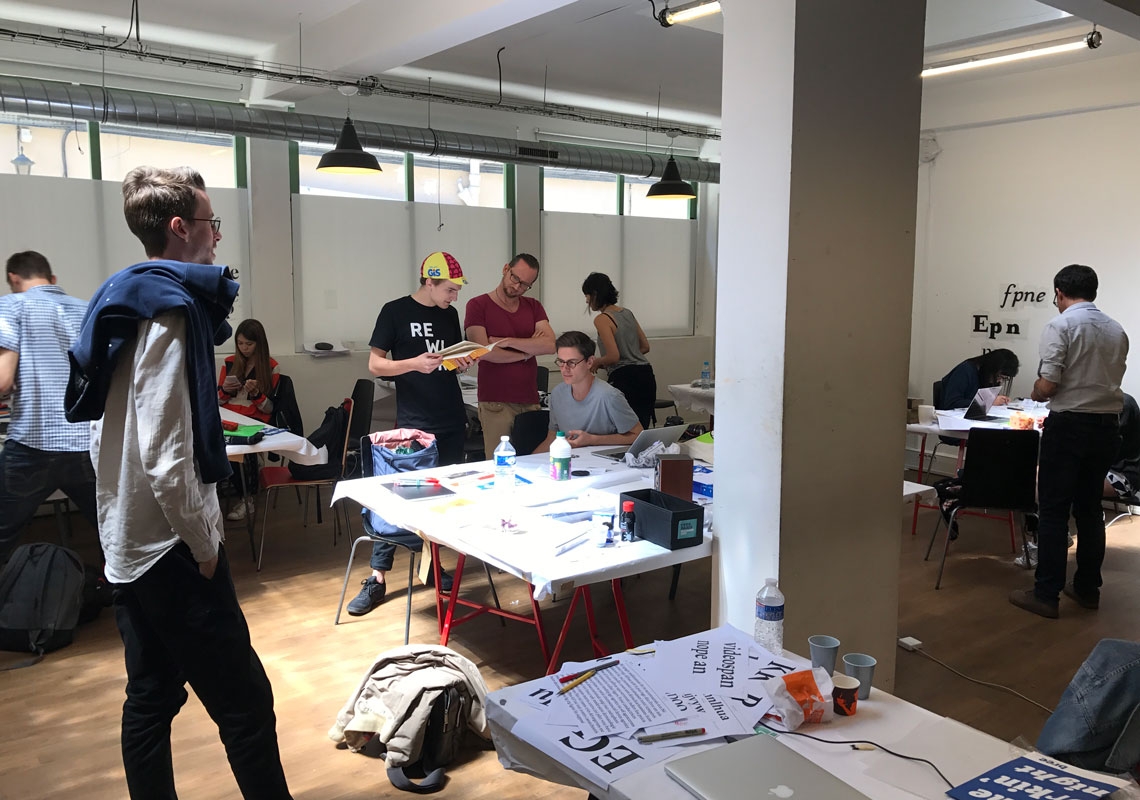
five tips for type beginners
When asked to give five tips for type beginners, Veronika shared these:
1) Function & purpose
Having a well-defined brief of what the intended purpose and function of the typeface is will help define parameters for the design. For example, an informal font for children will require different criteria than a text face for newspapers.
These parameters will help decide items such as contrast, stem thickness, modulation, serif structure, x-height, and extenders, helping shape the typeface’s DNA with just a few letters.
2) Research
Generally speaking, it is important and very useful to know type history. It allows the designer to understand the construction of letters, which parts can be manipulated, and where the connections lie within the system. However, history should not be the only place of research. Contemporary needs and current type offerings might also open your eyes to seeing gaps, and therefore opportunities.
3) Experimentation
At times having a purpose may seem limiting, but the possibilities available within a defined design space can be surprising. When speaking of functional text typography, type design happens in the subtle changes of design elements that shape an harmonious system. Small variations can have a big impact due to the repetition rate of letters within a paragraph of text.
At the beginning of the process, take time to explore, mix shapes and styles, go to extremes, even experiment with different tools, and analyse why one idea works within a concept but others don’t.
4) Consistency
It may seem very mundane and obvious, but being consistent within a type system can be more difficult than imagined. It is one of the main ingredients that makes a typeface cohesive — glued together appropriately. This is especially important for components such as stem thickness, overshoots, vertical proportions, etc.
It is necessary to understand the structure of strokes and terminals, their provenience, and modulation to then apply similar treatment to the rest of the design. This does not mean that the elements have to be exactly the same, but they should follow the same logic. Actually, depending on style and purpose of the typeface, it is advisable to keep a certain sense of irregularity rather than a copy–paste feeling. This advise applies of course not just to lowercases and caps, but to the whole character set, from punctuation and math operators to accents.
5) Testing
Once the typeface is underway, it is important to test it as much as possible. Try to imagine the effects of the intended environment and even emulate them if possible. So if you are developing a typeface for screen use, make some mock-up text in html and test on different screens and mobile phones. Or if the concept is for newspaper use, use a copy machine several times with rough paper or a cheap ink-jet printer. Only a small character set with the key letters is needed to fine-tune the DNA of the typeface so it works for its intended purpose.
Oh and don’t forget to excersise!
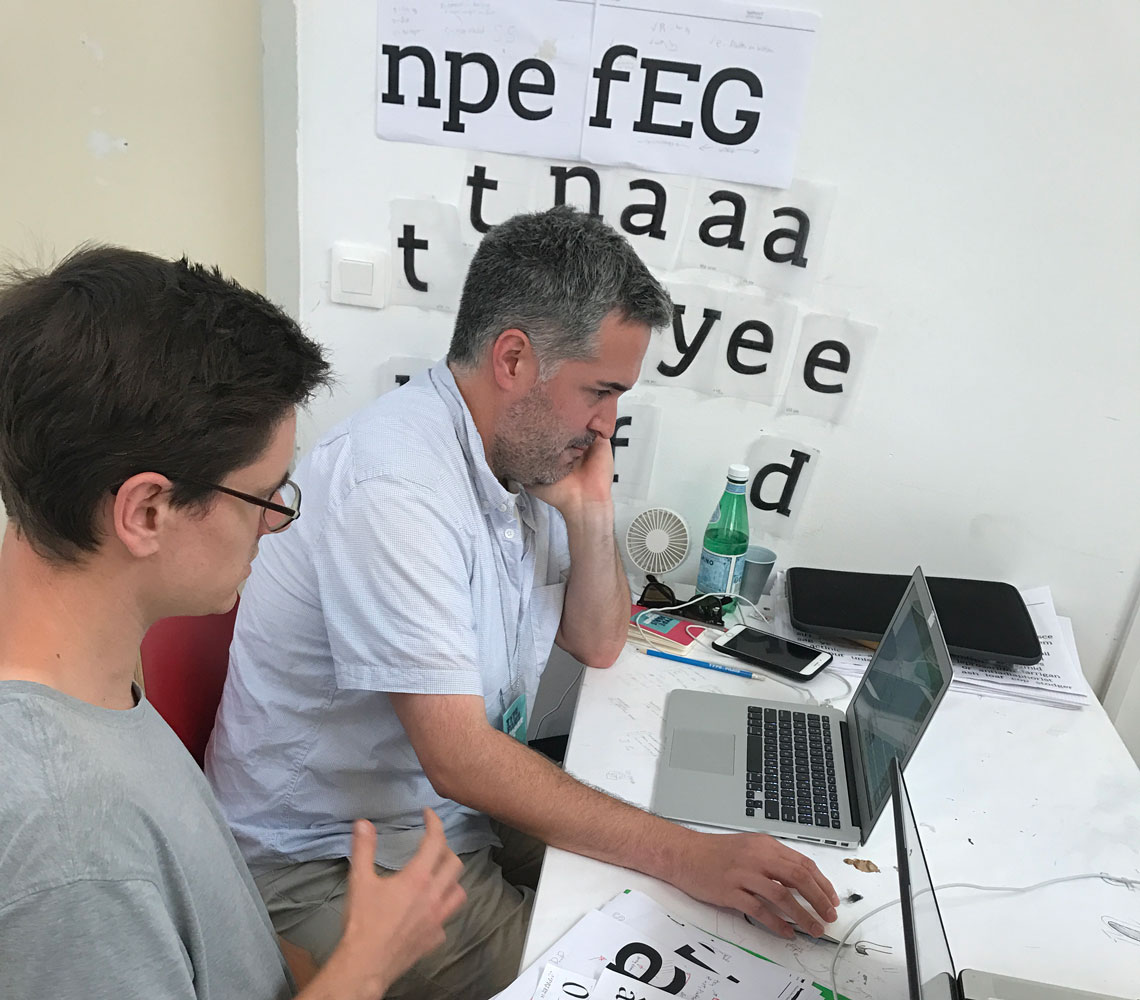
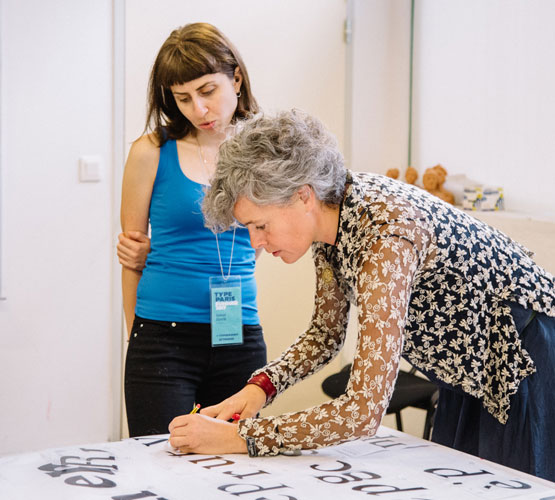
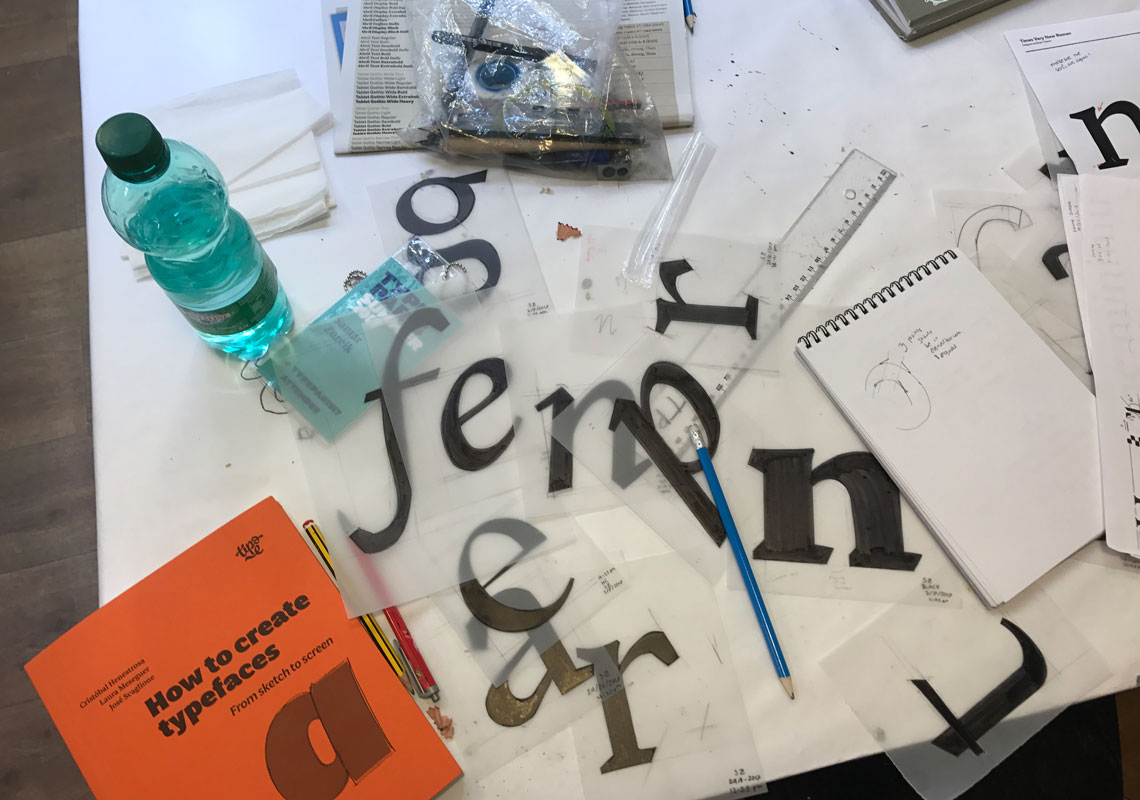
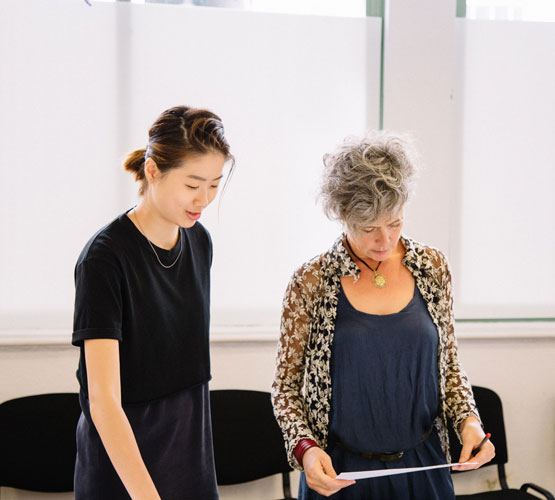
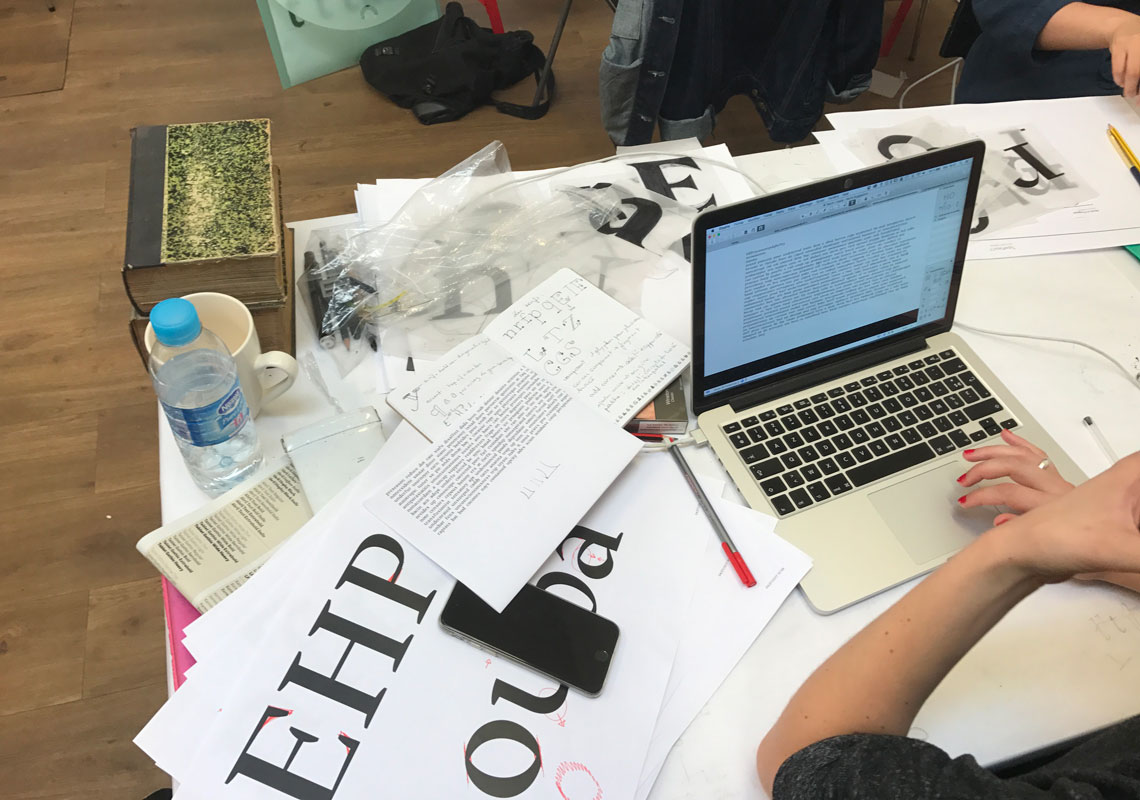
#tptalks17
Additionally every Tuesday TypeParis organises a set of talks #tptalks17 at Le Tank, a co-working place for creatives, with two speakers and one facilitator, good conversations, and some food and drink. The talks are free to the public and are also streamed live and available on YouTube.
July 4th saw first Olivier Alexanian & Thibault Caizergues who talked about their involvement as part of the design team for the French presidential campaign of Emmanuel Macron and some of their private design work. After a break Veronika spoke about the different levels of existing typeface customisation and presented the design process behind a few of TypeTogether’s tailored projects.
Overall it was a very intense but invigorating day at TypeParis!